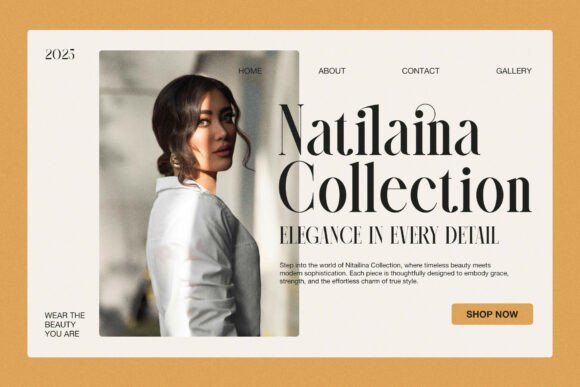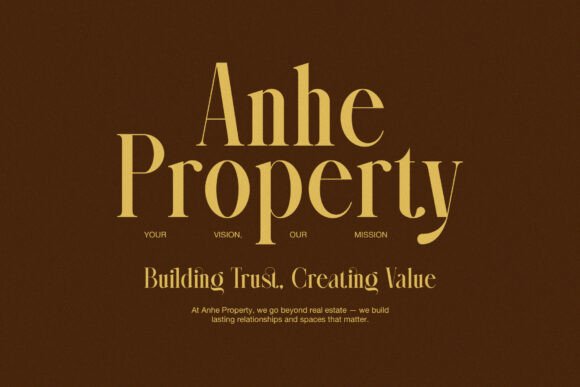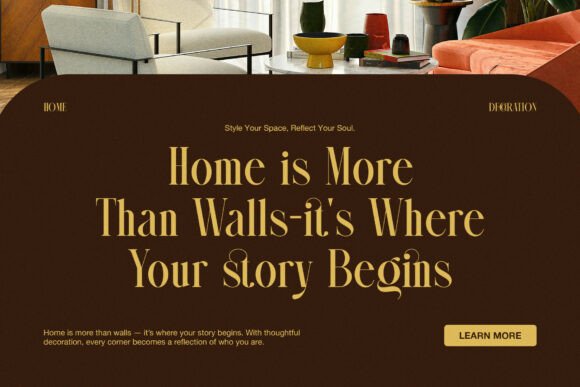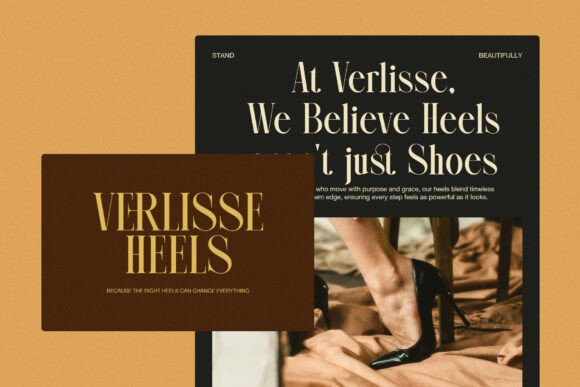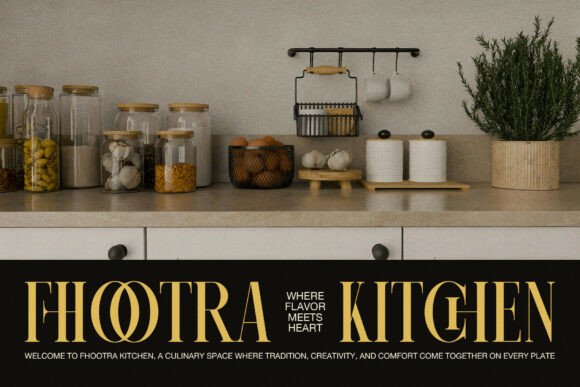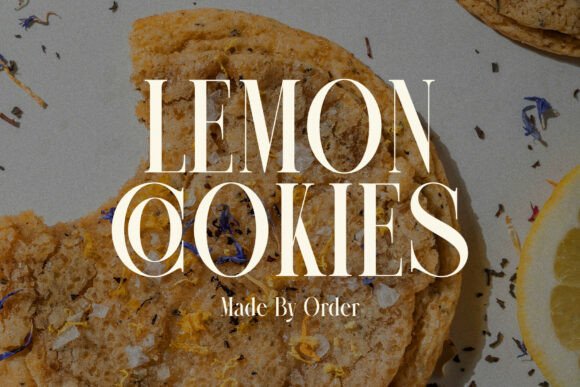
Introduction to Sencha Font Font
Fonts play a crucial role in design, and the Sencha Font font is a typeface that brings both character and versatility to any project. Whether you’re working on a branding project, a website, or a print design, the Sencha Font font offers a unique style that can elevate your work.
Sencha Elegant Serif Font is a modern serif typeface designed to elevate your brand with timeless style and clear elegance.
Crafted with smooth curves and balanced letterforms, Sencha brings both character and clarity to any creative work Because of its refined shape and clean layout, this font works beautifully across all design needs.
Key Features of Sencha Font Font
Why Choose Sencha Font Font?
The Sencha Font font is more than just a typeface – it’s a design tool that helps you communicate your message with style and clarity. Its unique character set and versatile design make it suitable for a wide range of applications, from elegant invitations to bold headlines.
With its carefully crafted letterforms and balanced proportions, the Sencha Font font ensures readability and visual appeal across all mediums.
What makes Sencha Font font special?
The Sencha Font font stands out with its unique design, exceptional readability, and versatility across various design applications.